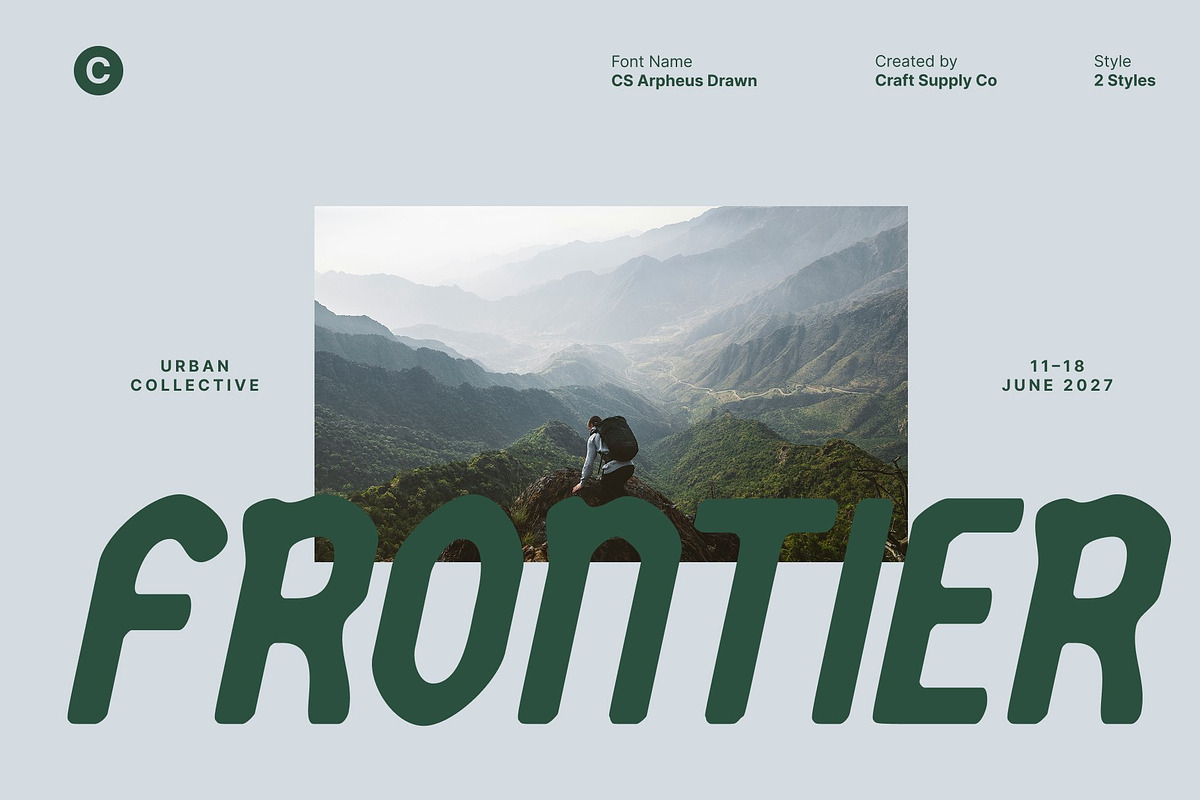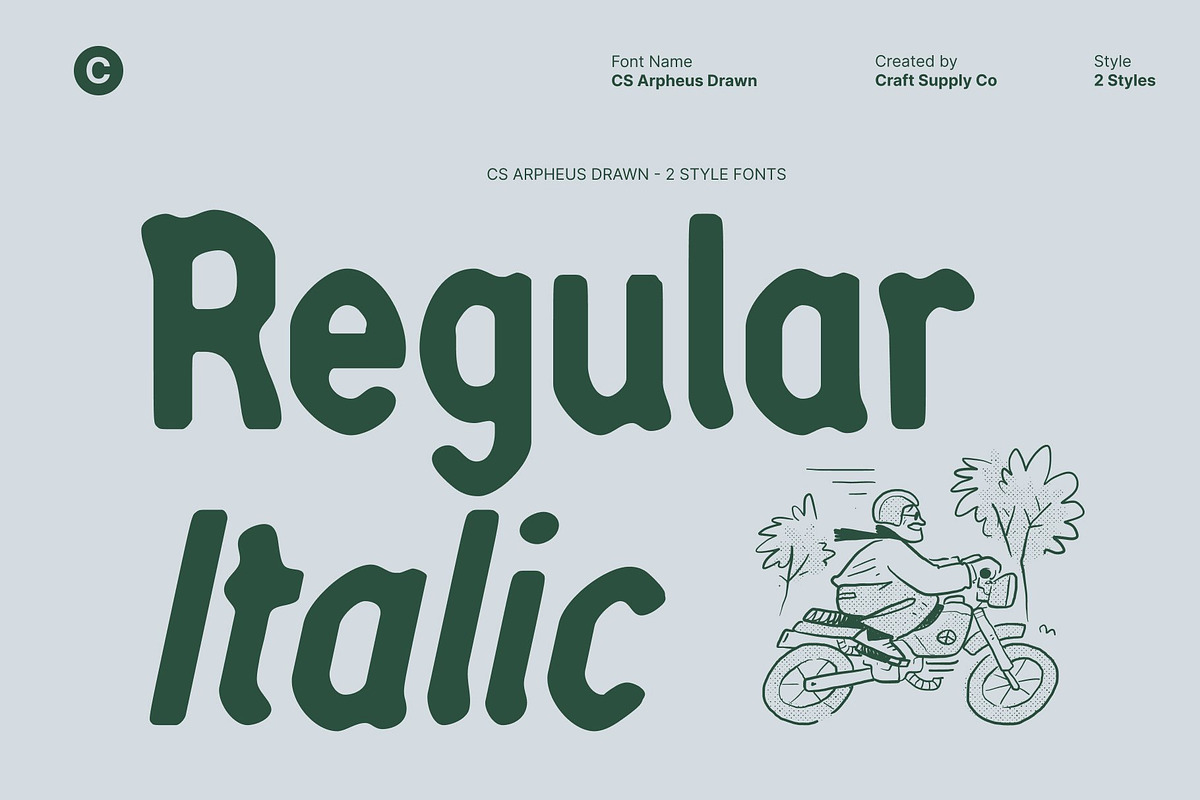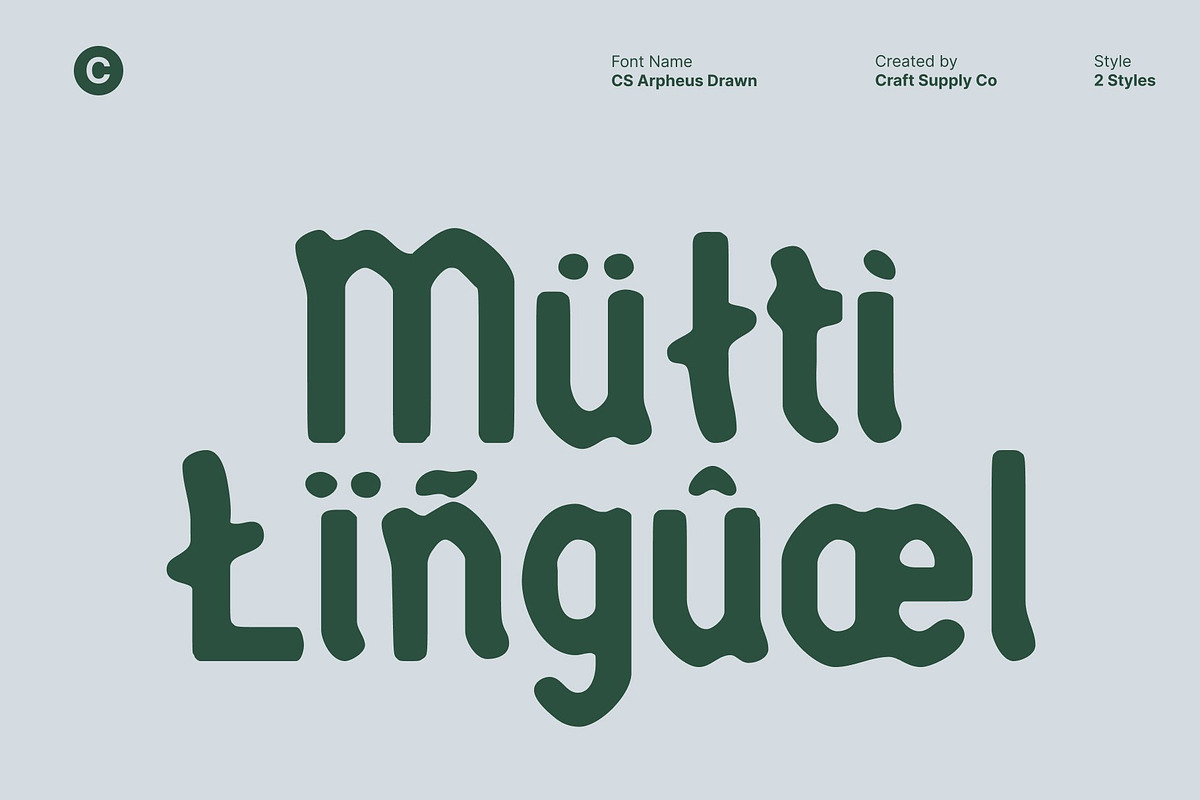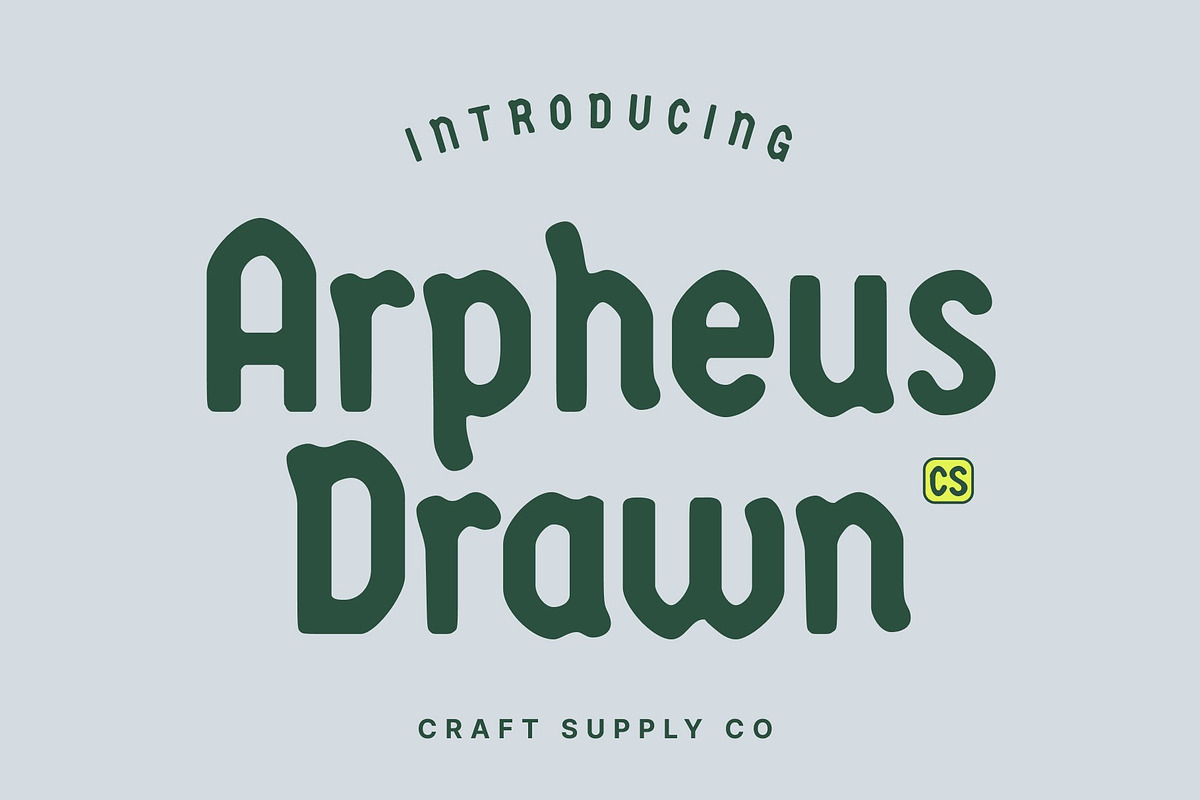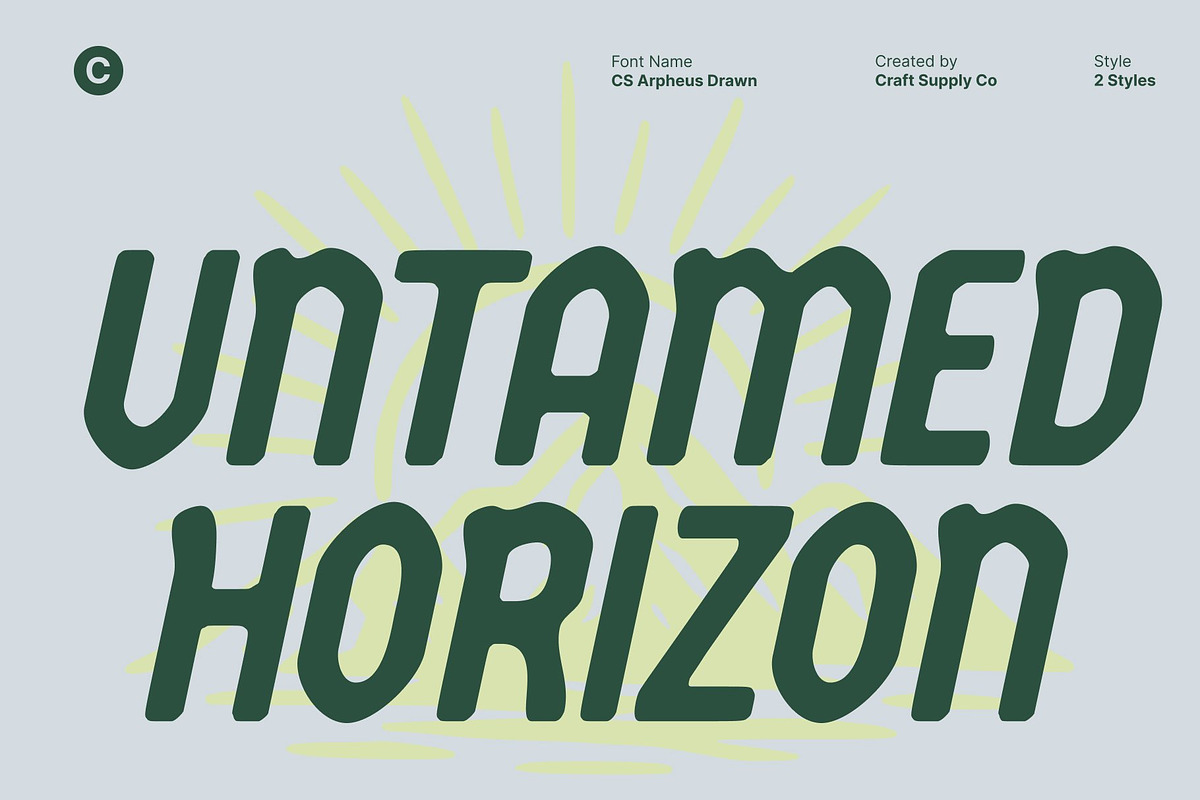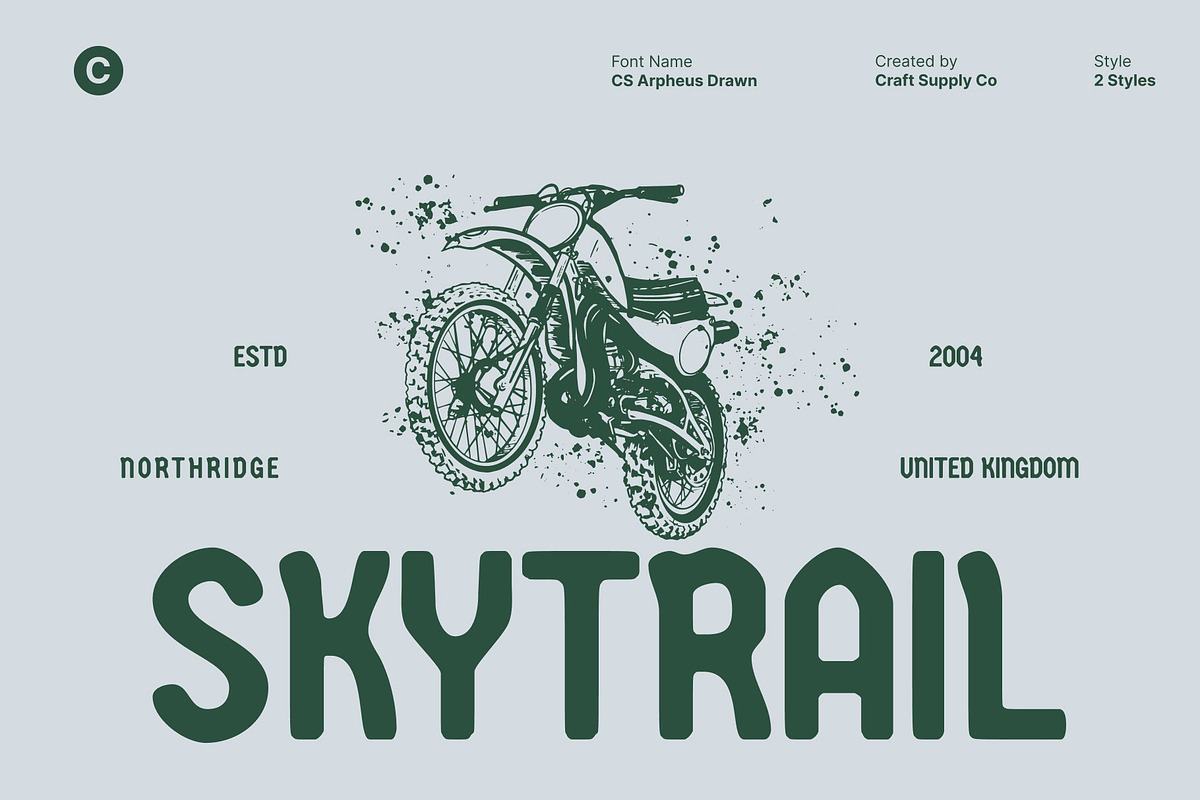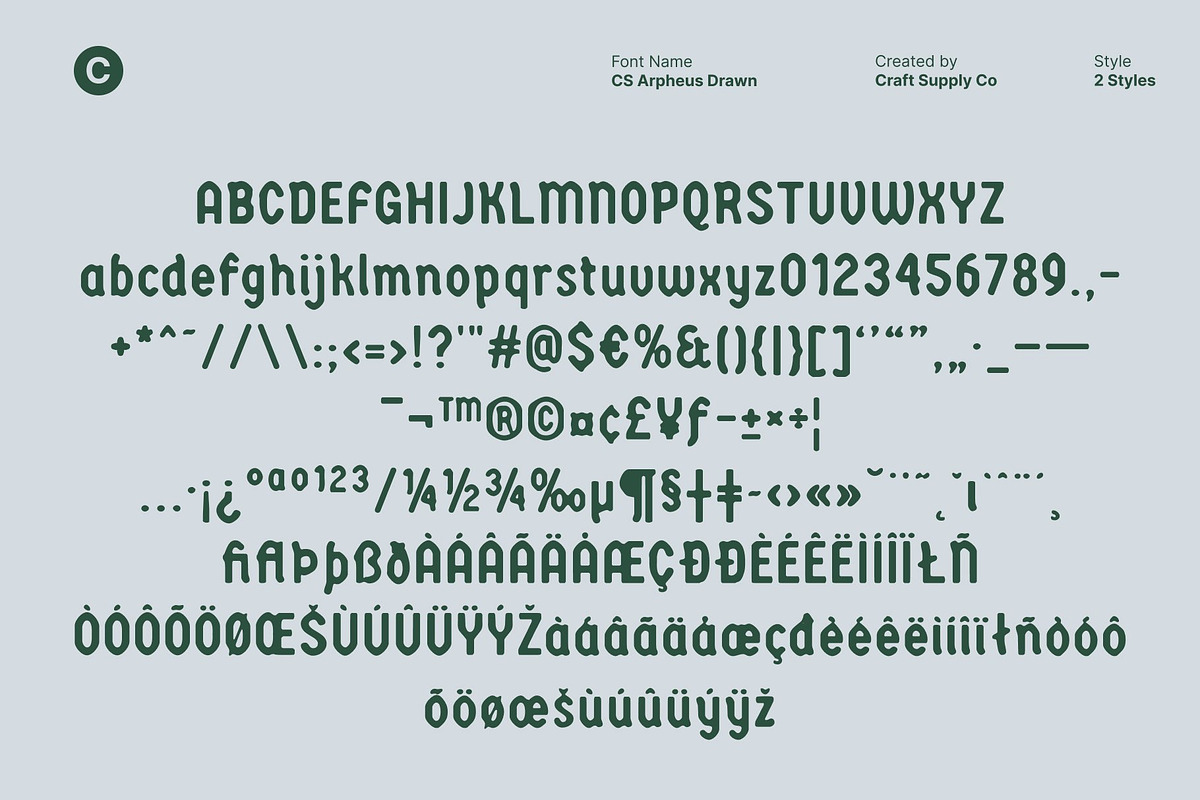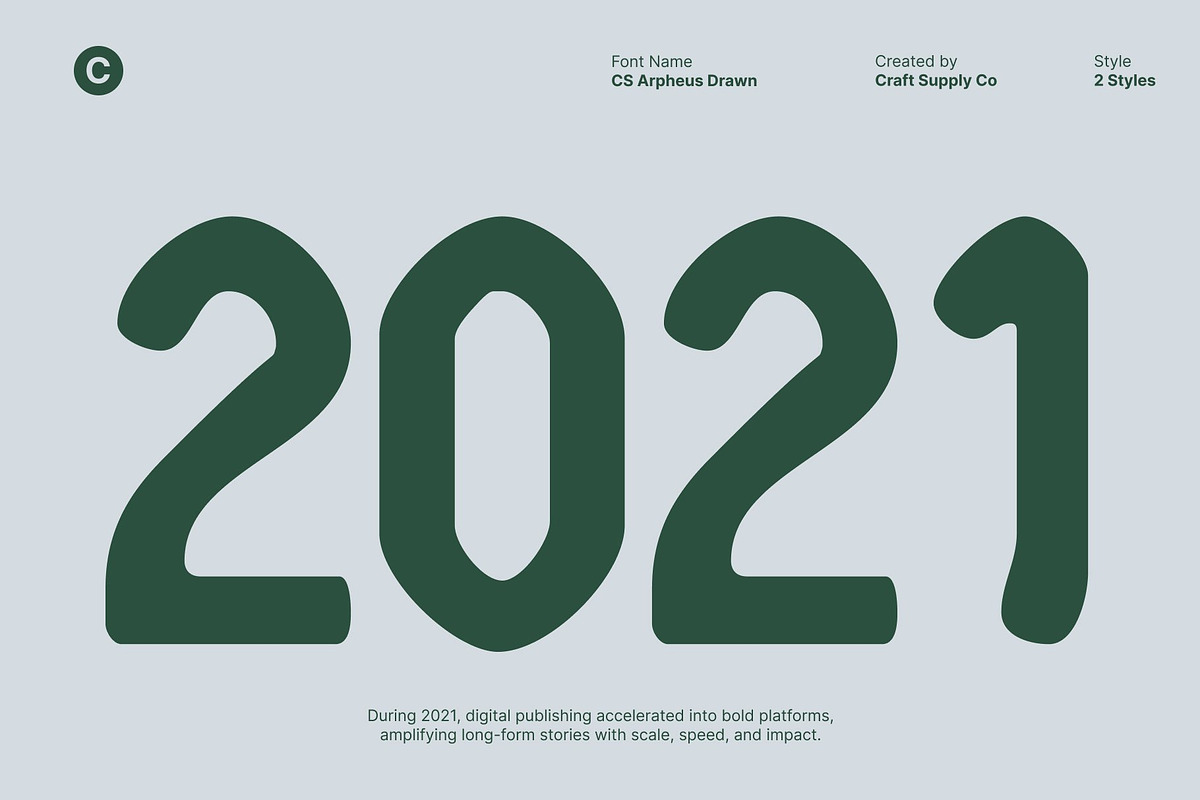
CS Arpheus Drawn
CS Arpheus Drawn – Modern Style with Bold Character
Modern Display Sans Serif with Drawn Strength This is a modern display sans serif font created to deliver a bold visual statement with confident personality. Designed with contemporary sensibilities in mind, this typeface combines strong construction with expressive drawn details that give it a distinctive, handcrafted edge.
Stylish Letterforms with Expressive Geometry The letterforms of this font are built with refined geometry and striking proportions. Sharp angles meet confident curves, creating a dynamic rhythm across words and headlines. The subtle drawn texture enhances its personality, adding depth and character without sacrificing clarity. This balance makes the font feel stylish, unique, and visually engaging, ensuring it stands out in crowded layouts.
Bold Presence with Clear Readability This font delivers a powerful presence while maintaining excellent readability. Its clean structure supports strong communication, making messages feel bold, direct, and impactful. Whether used at large scales or in shorter text blocks, the font remains legible and commanding. This makes it ideal for designs that demand attention while still conveying professionalism and clarity.
Perfect for Contemporary Branding and Creative Projects Designed for posters, branding, headlines, and modern creative projects, this font excels in expressive visual applications. Its bold character and modern aesthetic make it perfect for brands and designers who want to communicate confidence, innovation, and style.